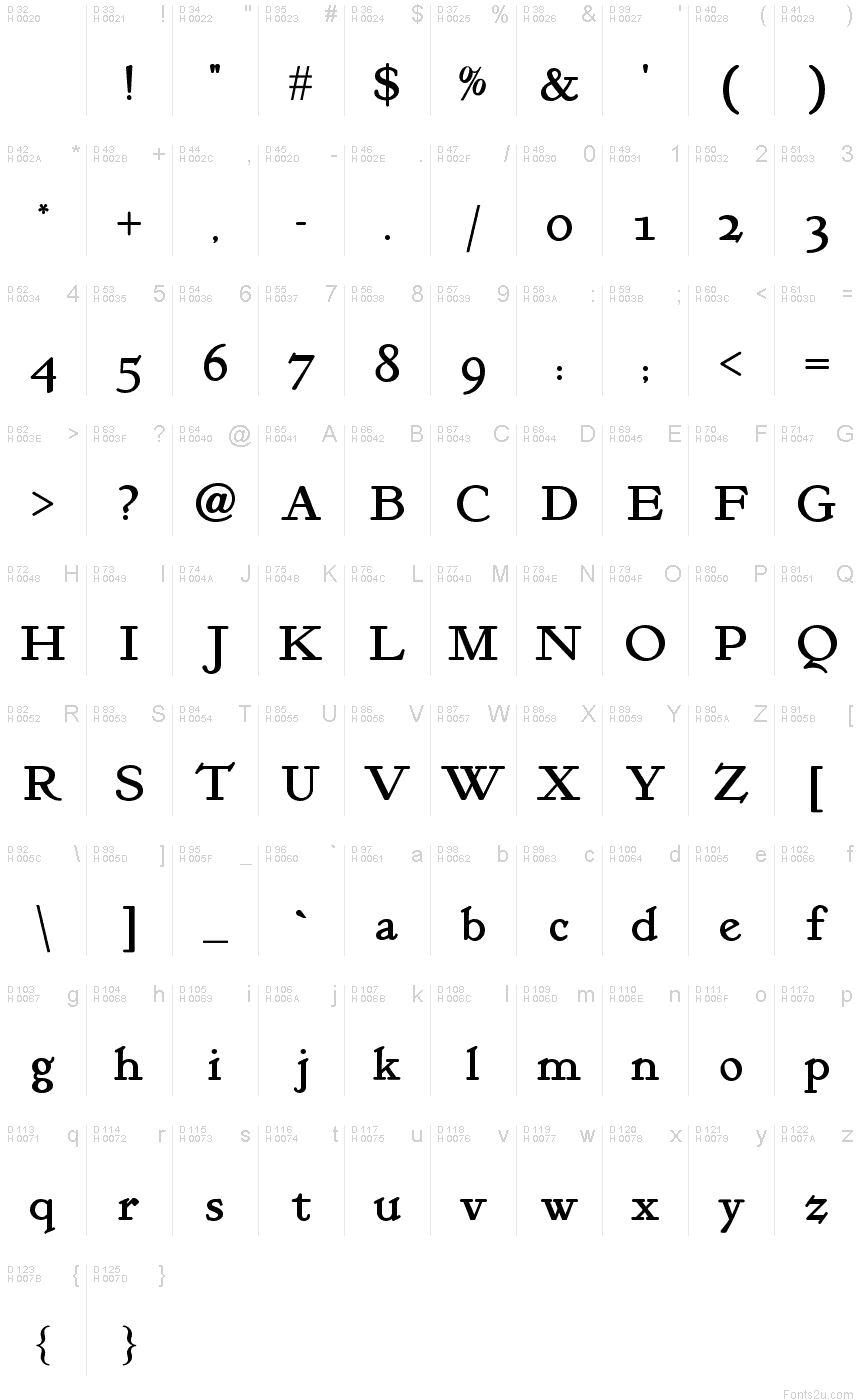
Kelmscott Roman NF by Nick Curtis of Nick's Fonts is a free Arts and Crafts serif with the sturdy, hand-cut manner of early private-press lettering. Broad strokes meet sharp wedge serifs, and the rounded forms retain a lively unevenness. Its tall proportions and changing stroke widths give the alphabet an old-world authority.
An artisan bookshop, heritage publisher, or traditional food brand could use it to build a convincingly period-minded identity. The carved quality suits packaging, signage, and book covers, especially when the subject involves craft, folklore, or history. It also belongs on literary event posters and formal invitations.